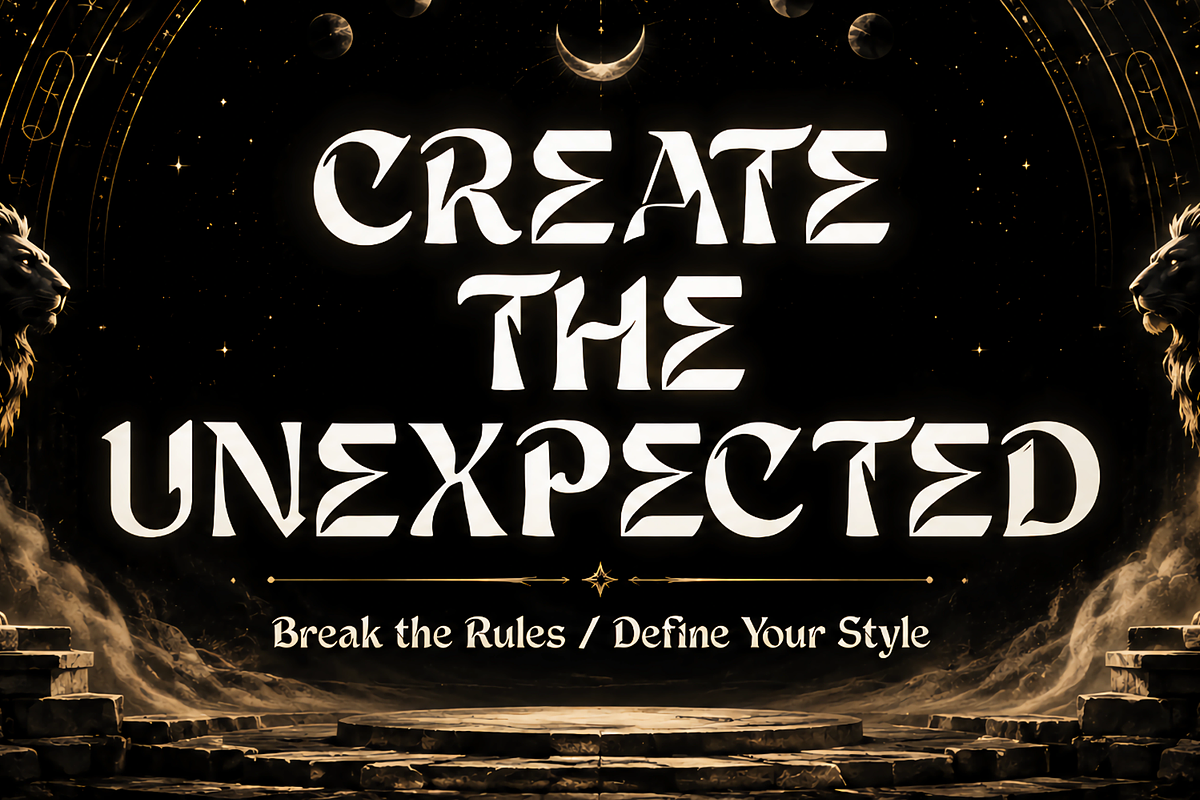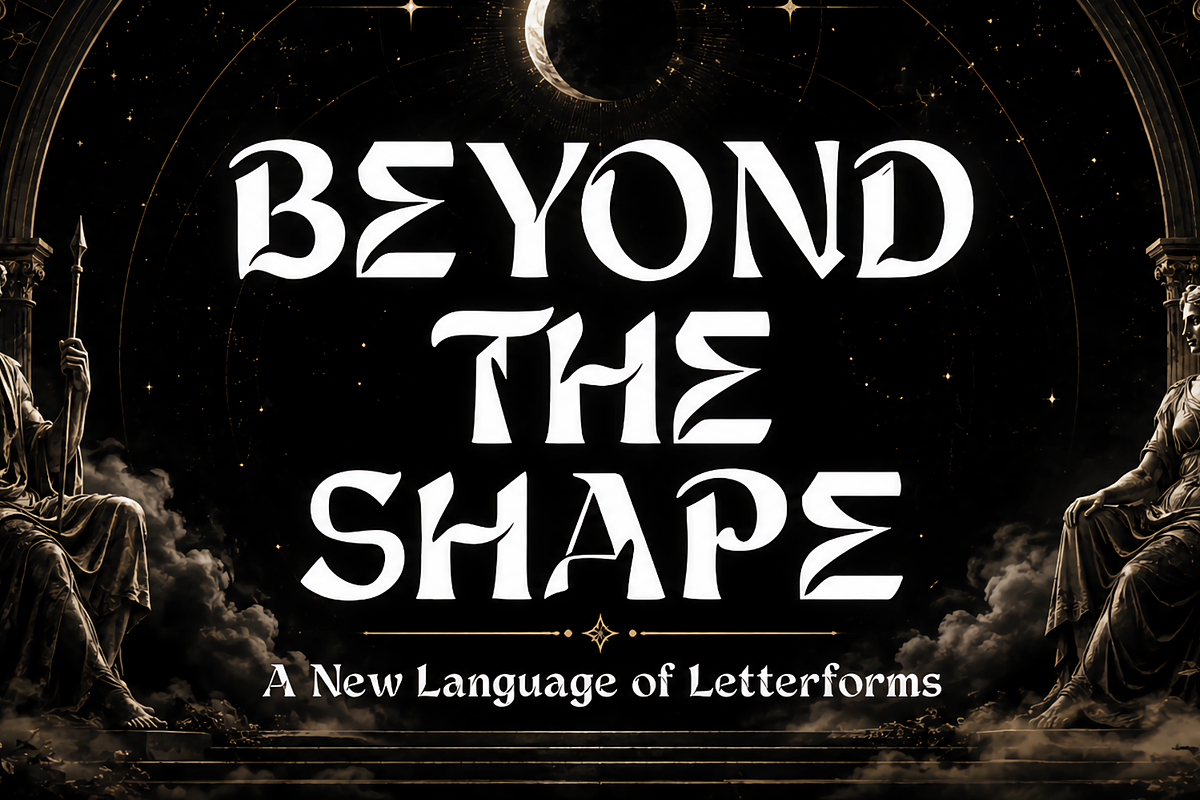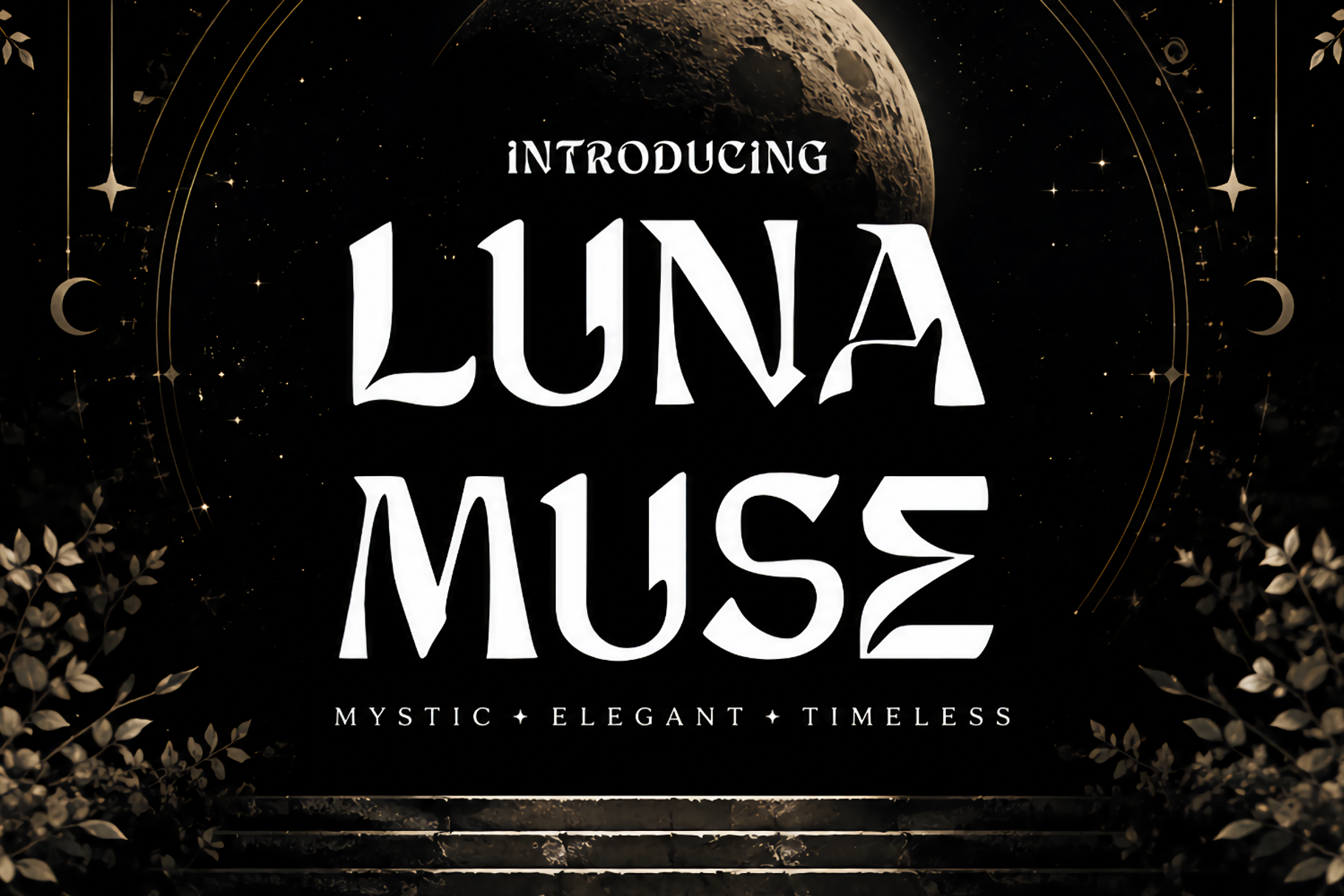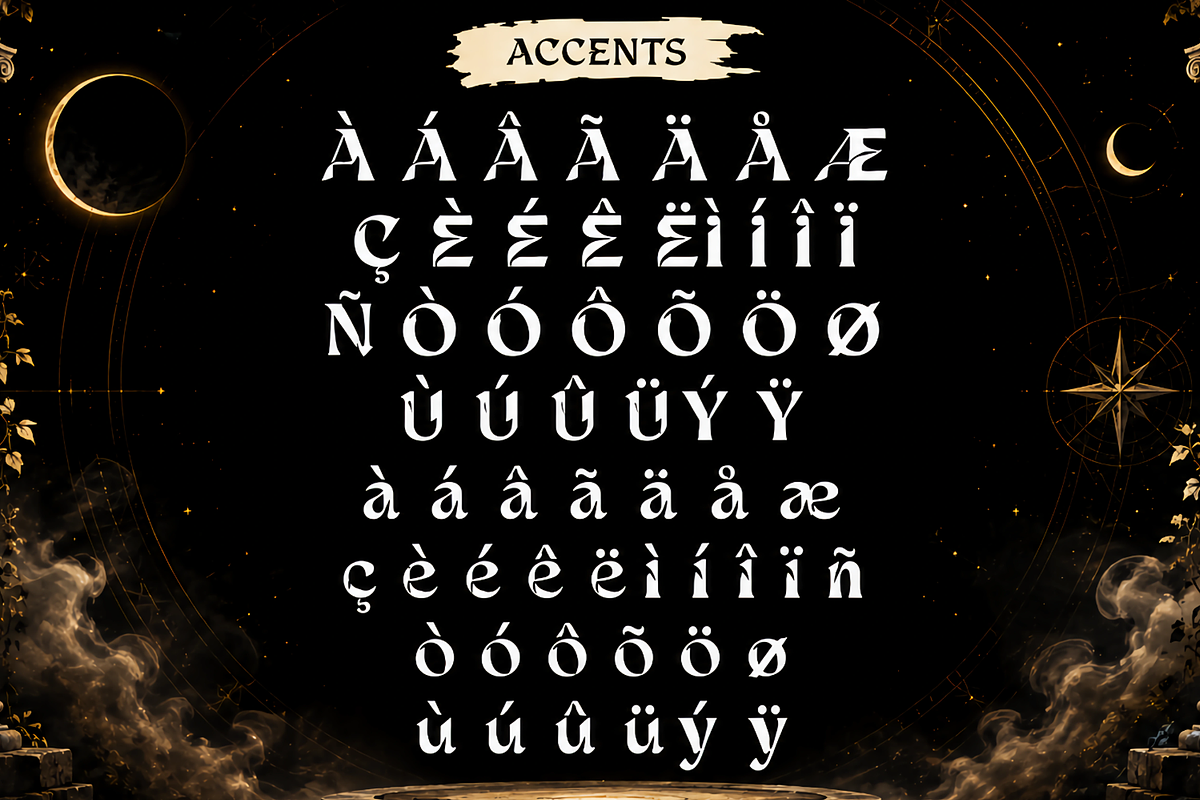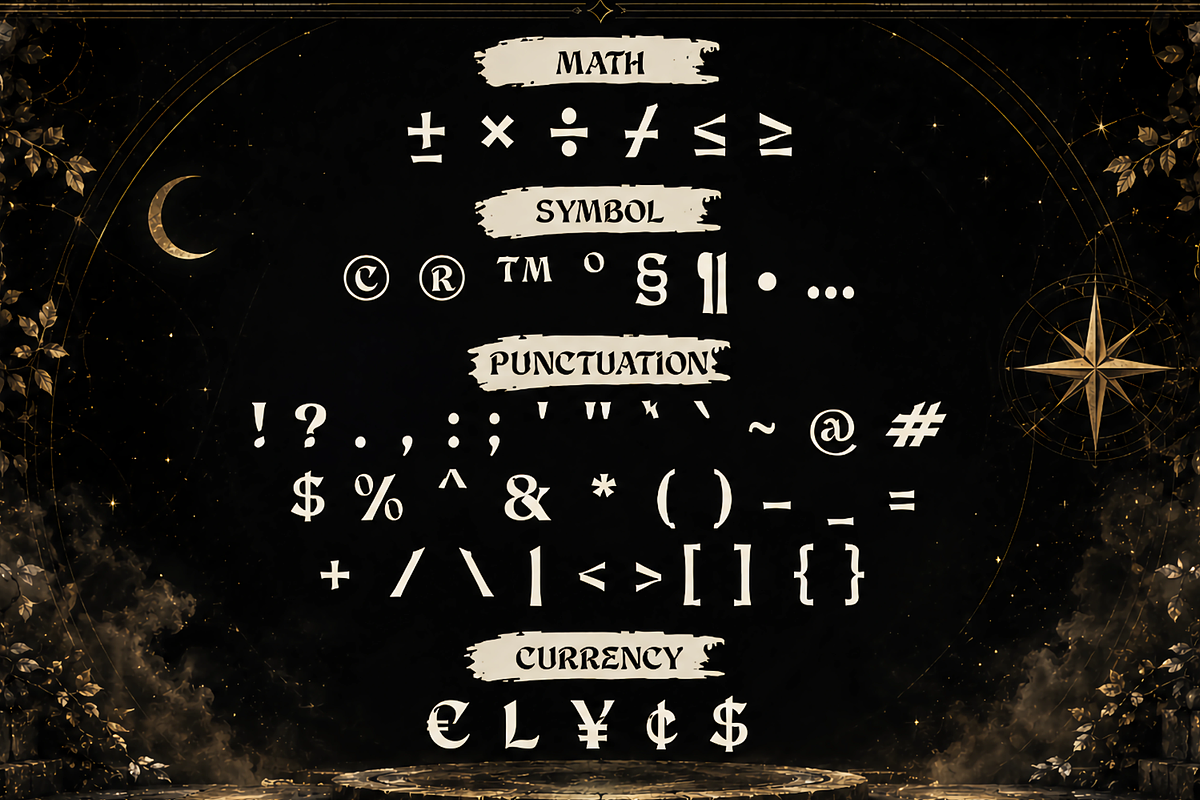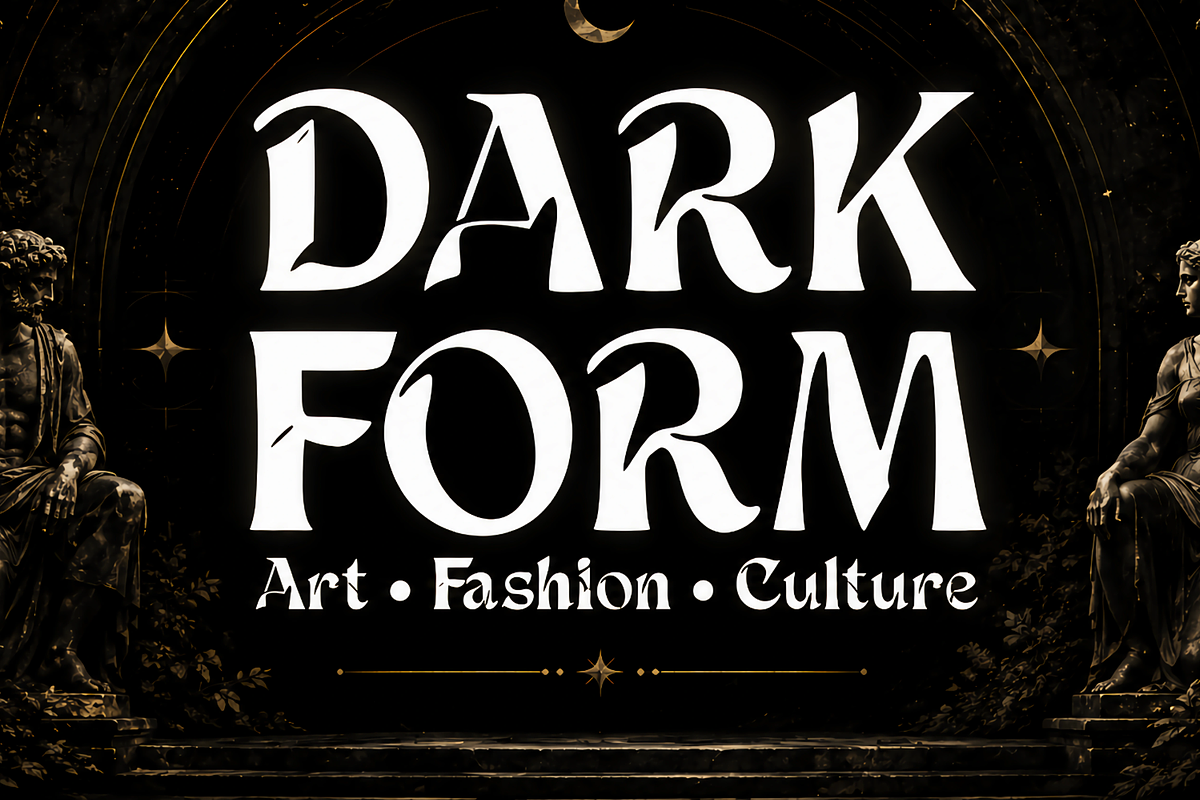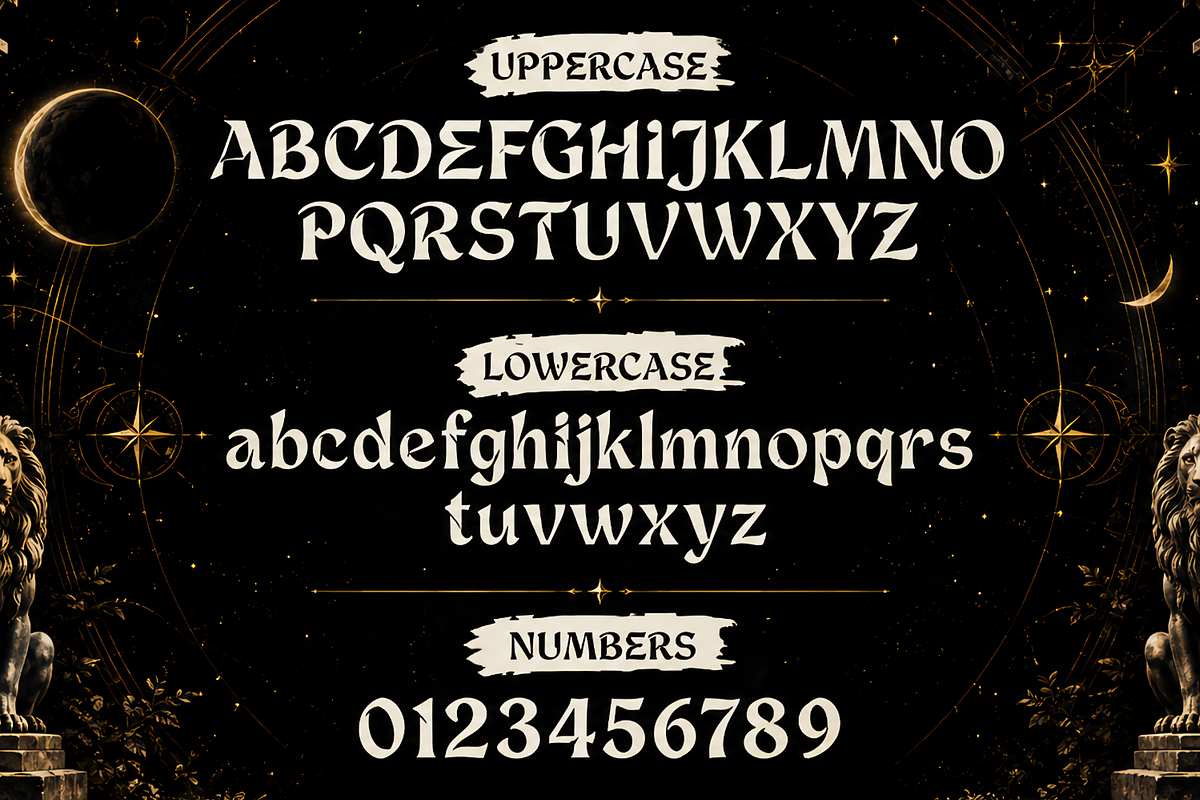
Luna Muse Gothic Decorative Typeface
Luna Muse is a bold experimental display typeface that blends sharp geometric forms with expressive, unconventional letter structures. Its distinctive cuts, angular details, and dramatic curves create a striking visual identity with a dark, artistic character.
Designed for projects that demand attention, Luna Muse works beautifully for fashion branding, album covers, posters, editorial design, logos, packaging, headlines, and contemporary visual identities. The Regular and Slant styles offer flexibility, allowing designers to create compositions ranging from sophisticated and mysterious to edgy and rebellious.
With its unique letterforms and strong personality, Luna Muse is made for designers who want to break conventional typography and create something unforgettable.